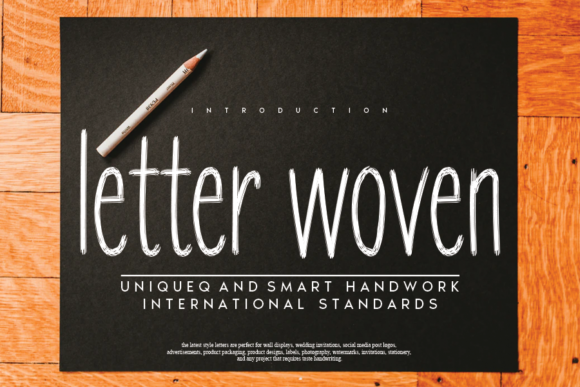
Letter Woven Font
Letter Woven is a sweet and friendly handwritten font. Its natural and unique style makes it incredibly fitting to a large pool of designs. The only limit is your imagination!